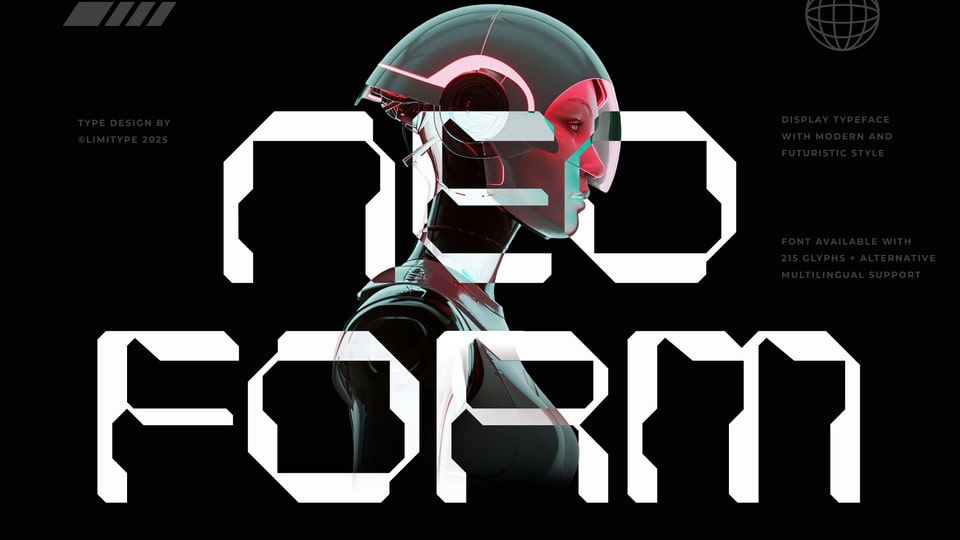
Download Neoform font, a unique futuristic typeface with letterforms resembling circuit patterns and electronic chips. Each curve and line is distinctive, precise, and modern.